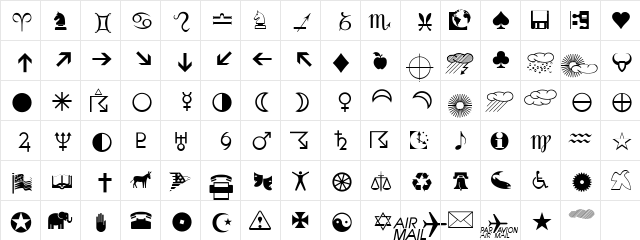
PIXymbolsDingbats Medium
Design Context for PIXymbolsDingbats Typeface
PIXymbolsDingbats takes a measured approach to typography — its balanced proportions and neutral character make it a reliable workhorse for both digital and print work.
Pro Tip: Use PIXymbolsDingbats in both headline and body roles to test its range before committing to a single application.